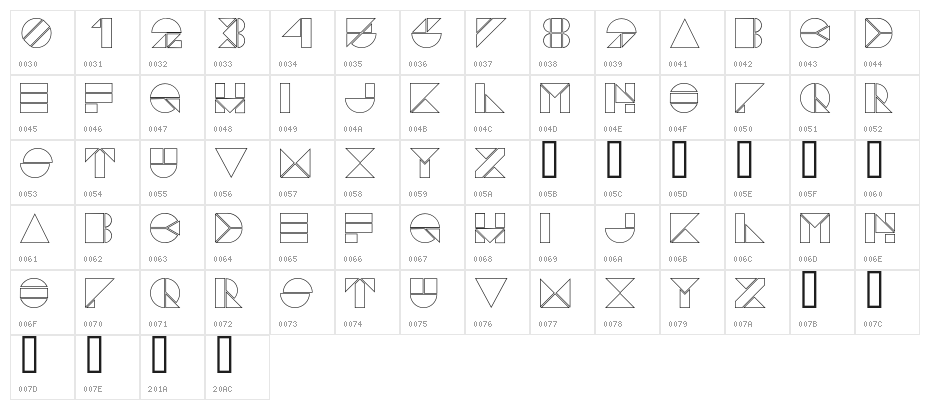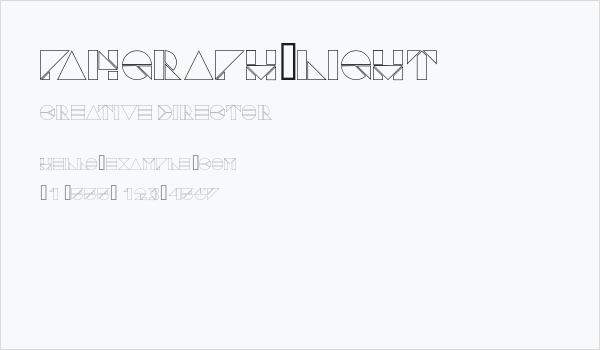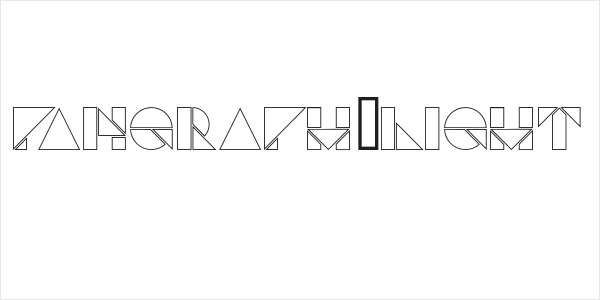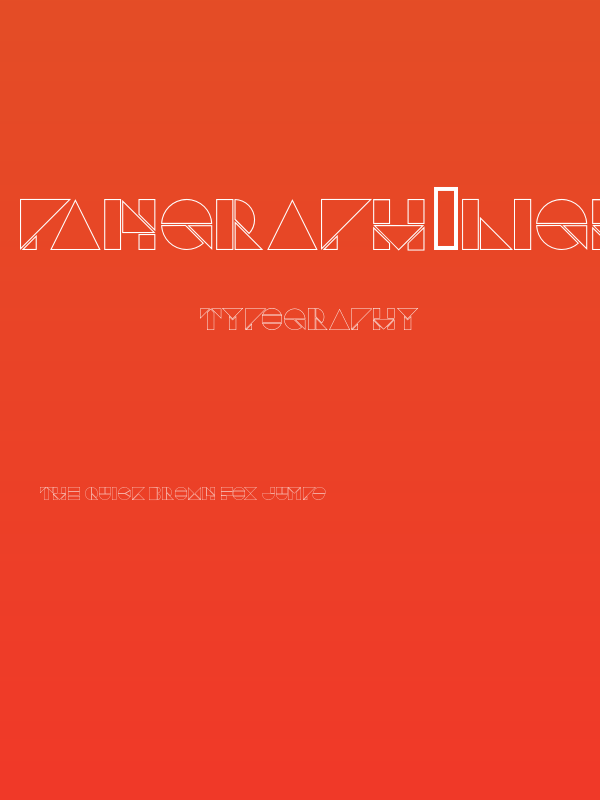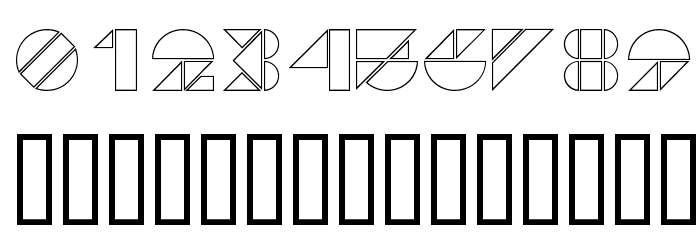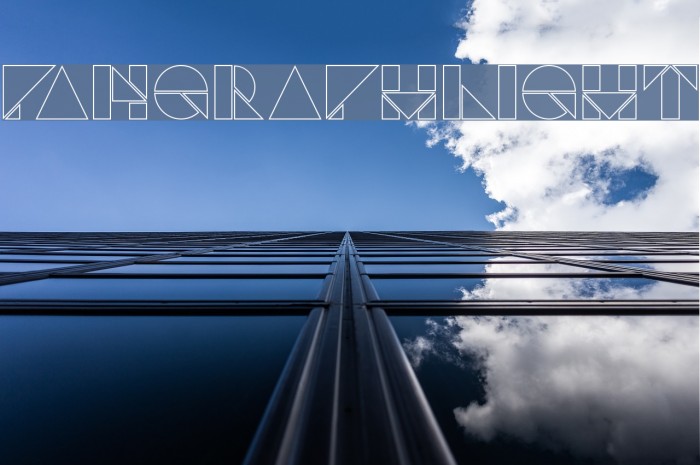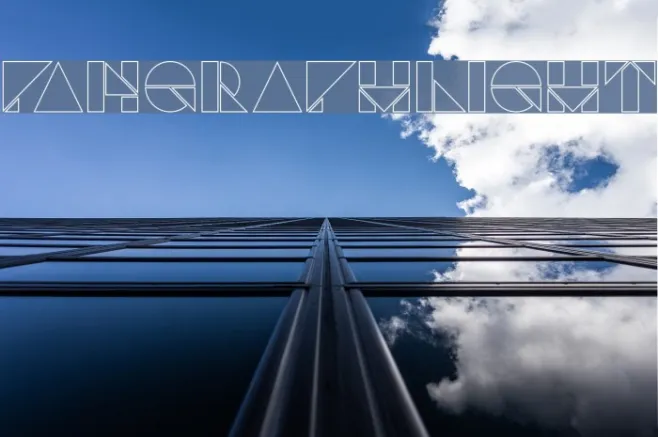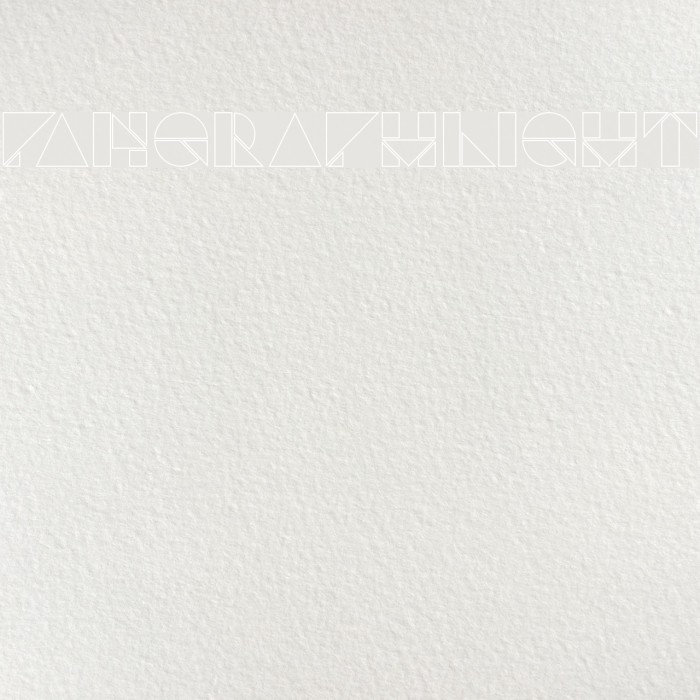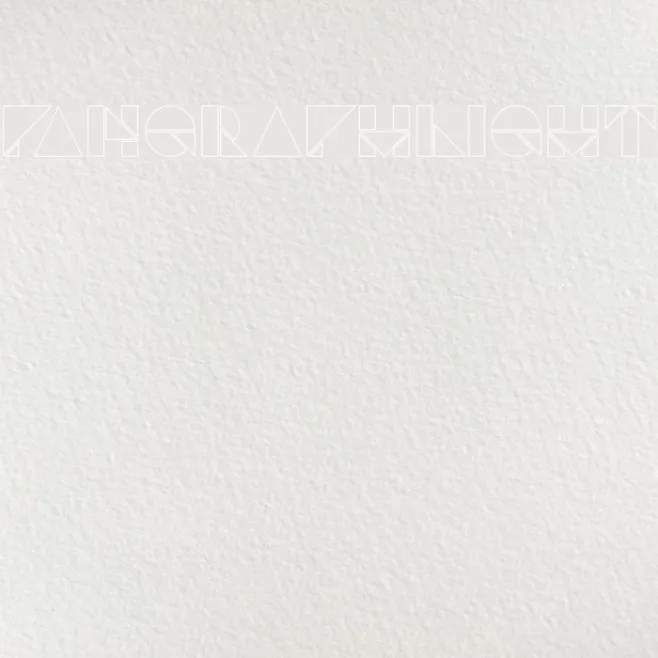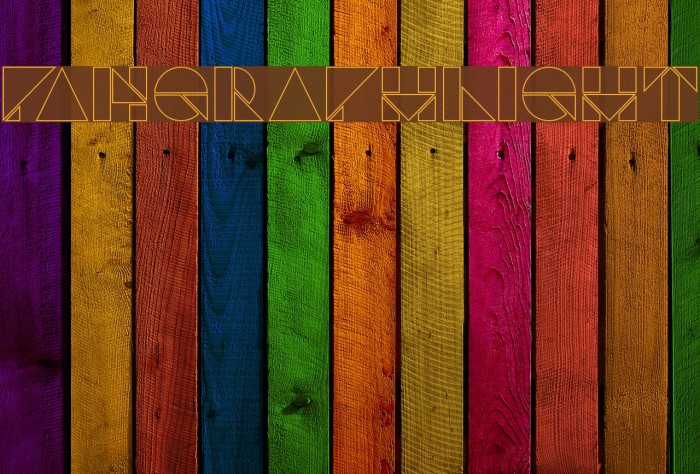
Pangraph-Light Font
Pangraph-Light Description
This font features a geometric and abstract design, characterized by its use of lines and shapes to form each letter and number. The characters are constructed using a combination of straight lines and arcs, creating a modern and artistic appearance. The uppercase and lowercase letters maintain a consistent style, with a focus on symmetry and balance. The numbers follow the same design principles, ensuring uniformity across the font. Special characters are presented in a bold, outlined style, adding to the font's unique aesthetic. This font is ideal for creative projects that require a distinctive and contemporary look.
| Use Case | Logos, Headlines |
| Proposed Projects | Ideal for branding, posters, album covers, and modern art projects. |